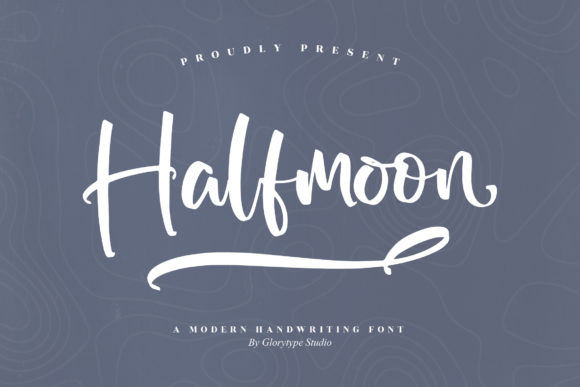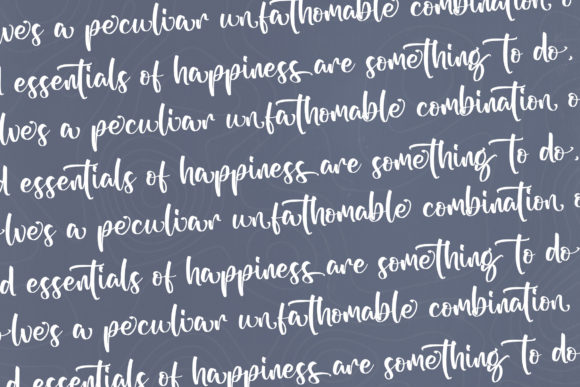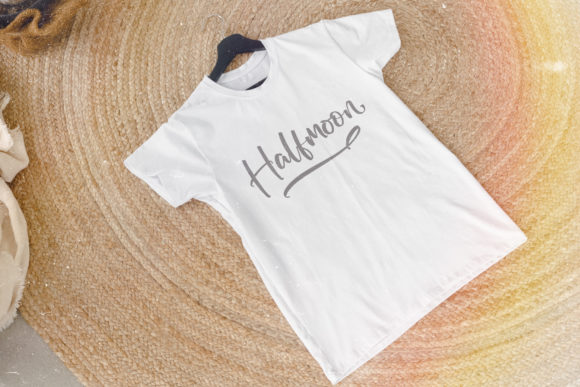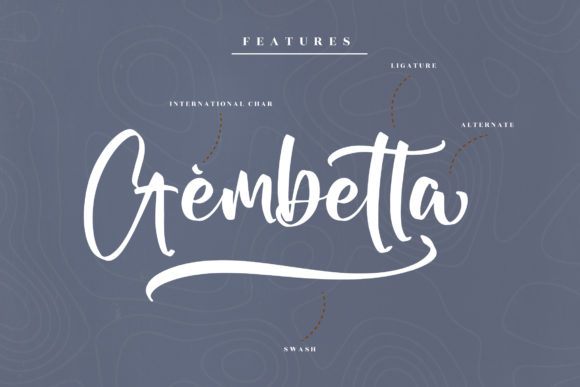
About Halfmoon Font
Halfmoon is a trendy and delicate script font. It is suitable for various projects such as: logos, branding projects, homeware designs, product packaging, mugs, quotes, posters, and so much more. This font is PUA encoded which means you can access all of the glyphs and swashes with ease!Â